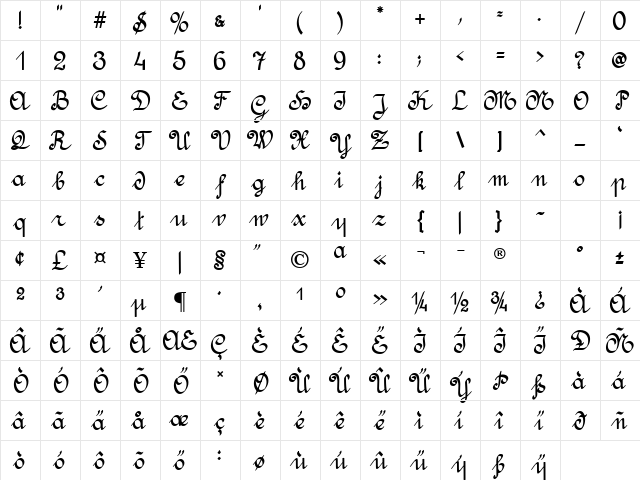
Amptmann Script Regular Free Font
Amptmann Script Regular
Foundry: Peter Wiegel
Designer: Peter Wiegel
Design Context for Amptmann Script
Amptmann Script flows with the natural rhythm of handwritten lettering, making it ideal for designs that call for warmth and personal expression.
Font Pairing: Combine Amptmann Script with a simple geometric sans for maximum contrast - the tension between flowing curves and clean structure is a classic typographic pairing.
Pro Tip: Use Amptmann Script for short runs of text - names, titles, or taglines. Extended body copy in script faces tires the eye quickly.